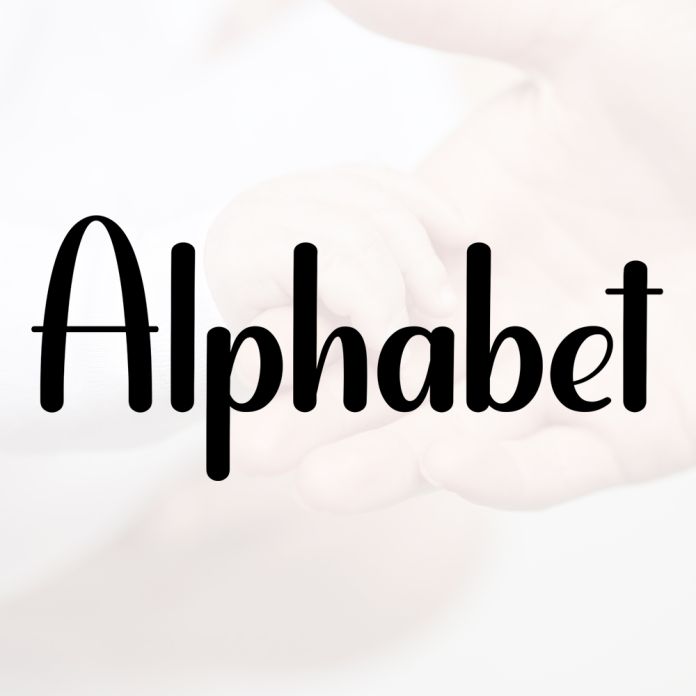
Alphabet is a romantic and sweet calligraphy typeface with characters that dance along the baseline. It has a casual, yet elegant touch. It will add a luxury spark to any design project that you wish to create! This font is PUA encoded which means you can access all of the amazing glyphs and ligatures with ease!